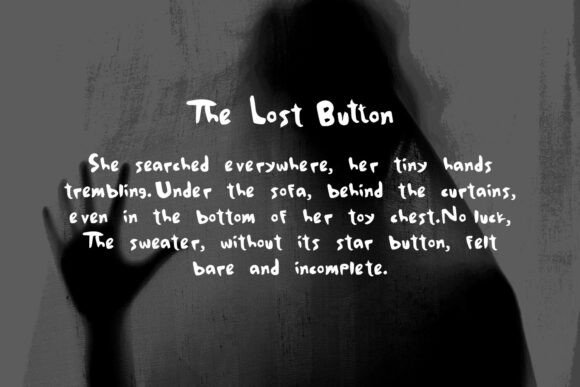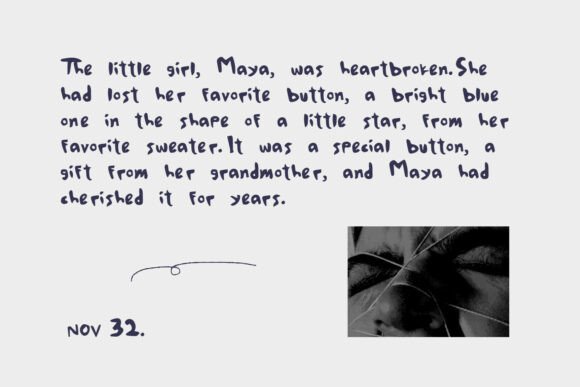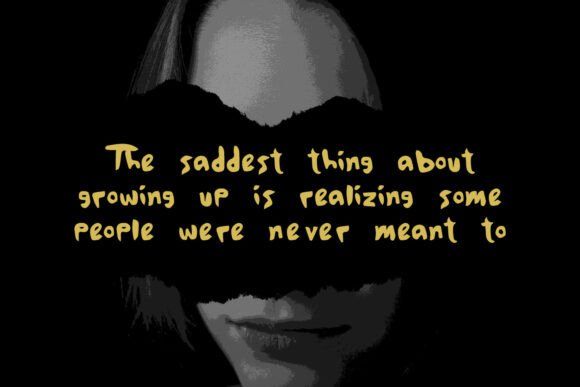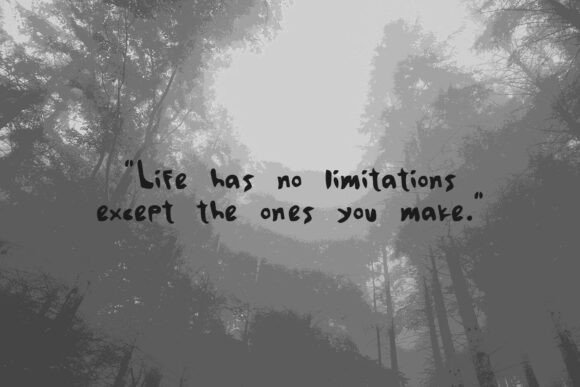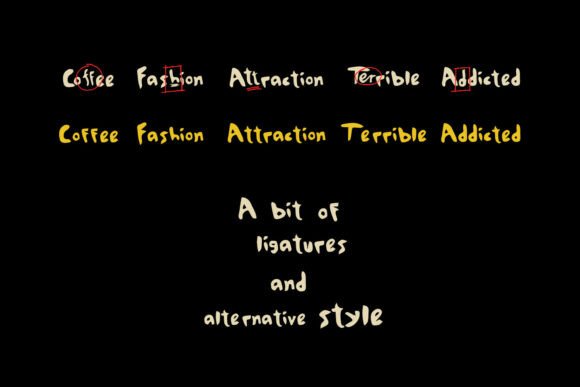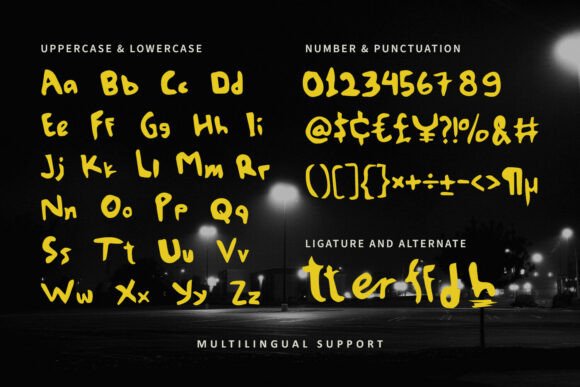
Introduction to Nodhern Font Font
Fonts play a crucial role in design, and the Nodhern Font font is a typeface that brings both character and versatility to any project. Whether you’re working on a branding project, a website, or a print design, the Nodhern Font font offers a unique style that can elevate your work.
Nodhern is a bold, rugged handwritten font that captures a raw, organic energy.
With its expressive strokes and slightly irregular forms, this font is perfect for adventurous branding, mysterious movie titles, or grunge-inspired apparel Whether youβre designing for a spooky event or a nature-themed project, Nodhern brings boldness and character to the forefront.
Key Features of Nodhern Font Font
Why Choose Nodhern Font Font?
The Nodhern Font font is more than just a typeface β it’s a design tool that helps you communicate your message with style and clarity. Its unique character set and versatile design make it suitable for a wide range of applications, from elegant invitations to bold headlines.
With its carefully crafted letterforms and balanced proportions, the Nodhern Font font ensures readability and visual appeal across all mediums.
What makes Nodhern Font font special?
The Nodhern Font font stands out with its unique design, exceptional readability, and versatility across various design applications.